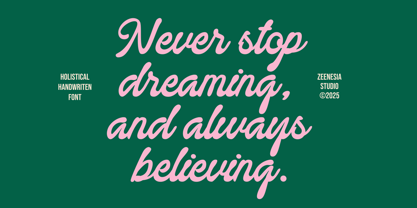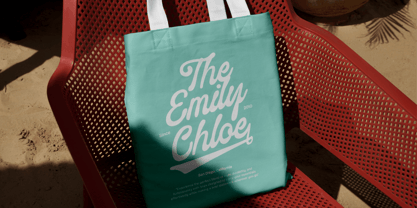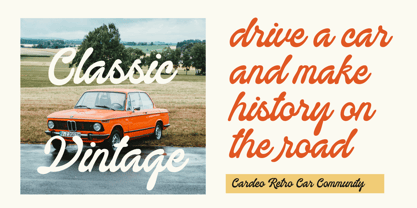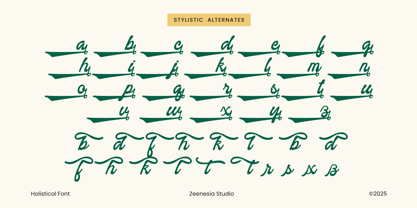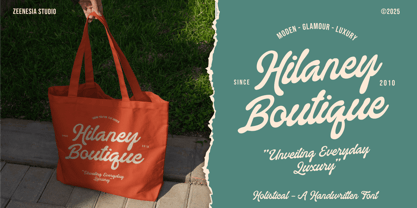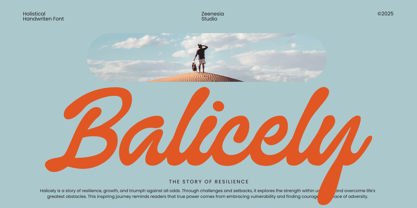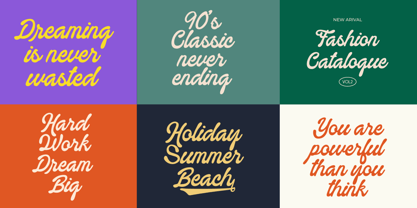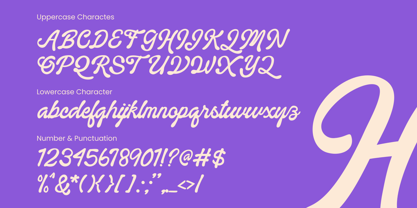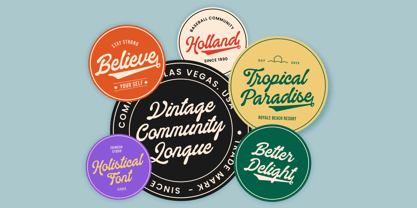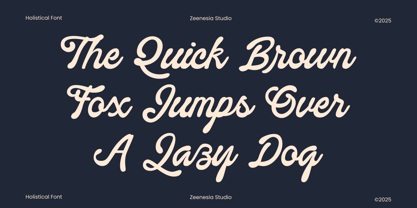
Holistical
The Holistical Font Family was designed by Doni Purwoko and published by Zeenesia Studio. Holistical contains 1 styles. More about this family
Holistical – A Handwritten Font
Holistical is a charming handwritten font that beautifully blends elegance with a personal touch. Its smooth strokes and natural flow make it perfect for branding, invitations, logos, social media posts, and more. Inspired by the art of mindful writing, Holistical captures warmth, authenticity, and creativity in every letter.
Holistical adds a graceful and expressive feel that speaks from the soul. With its handcrafted style and effortless readability, this font is not just a typeface – it's a story in every line.